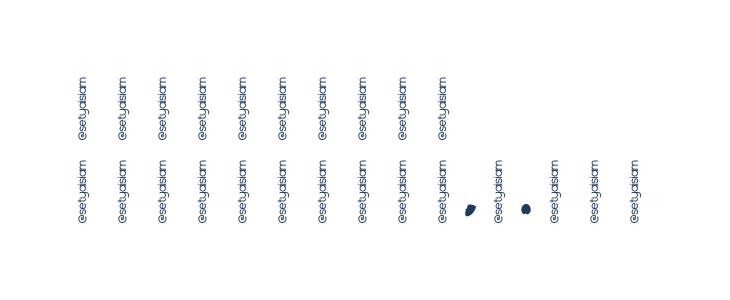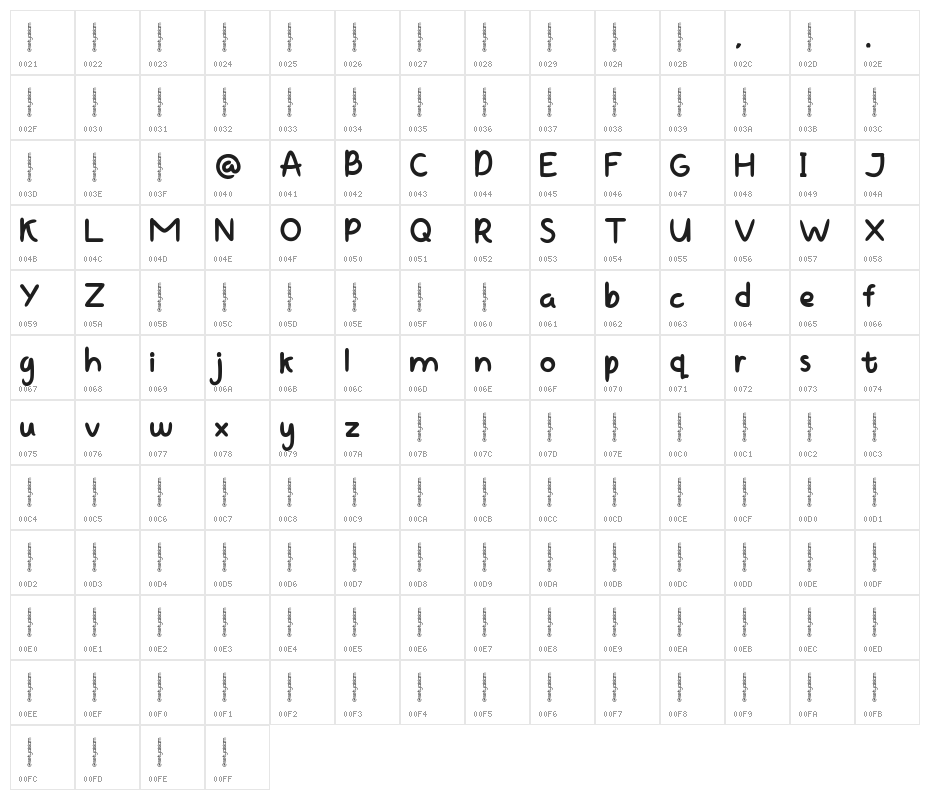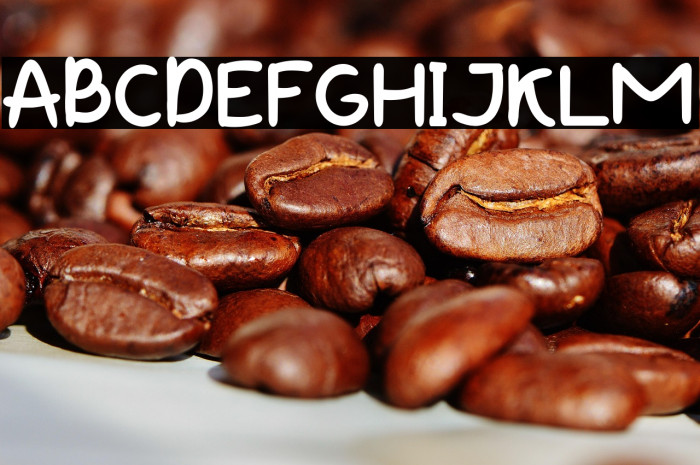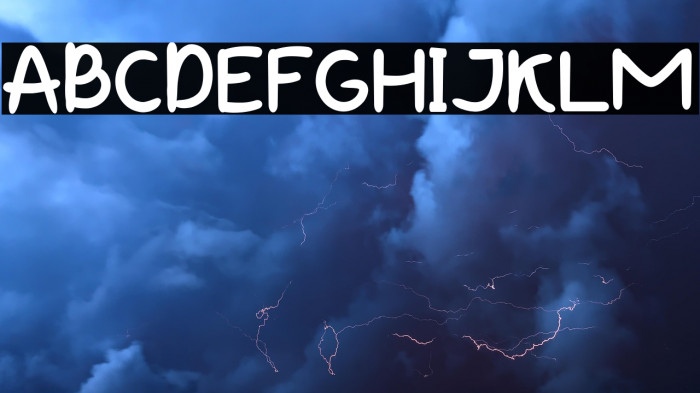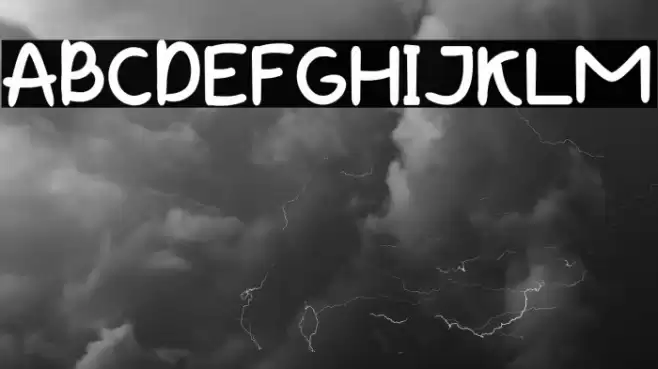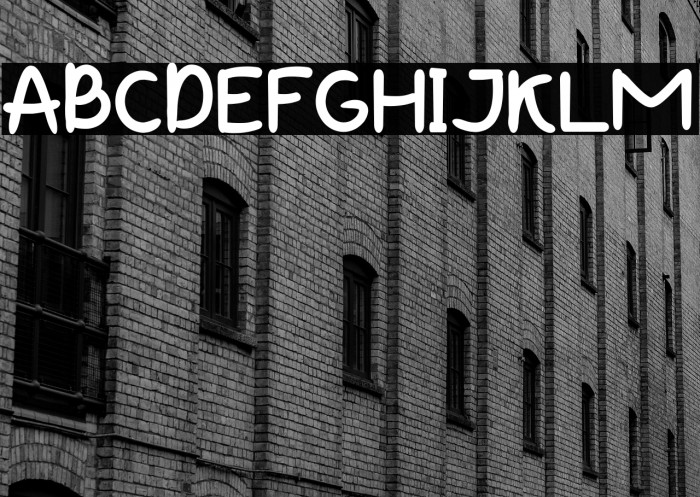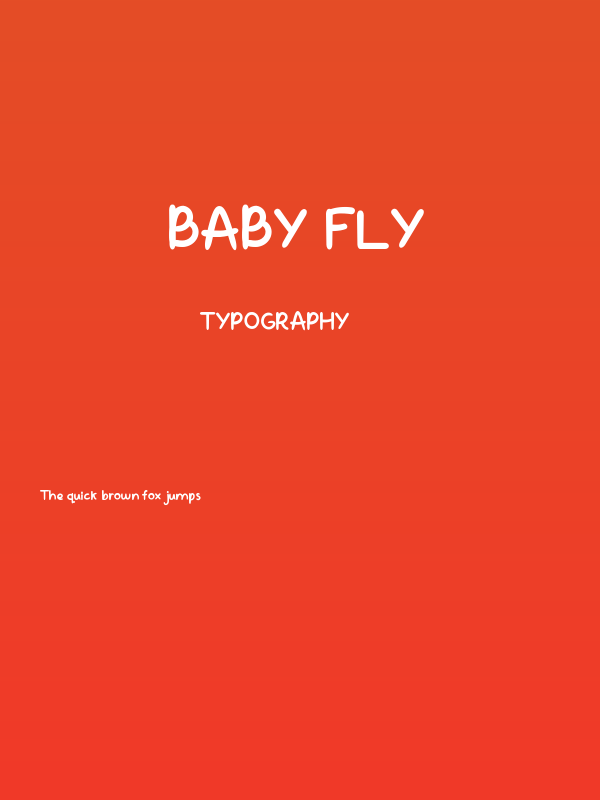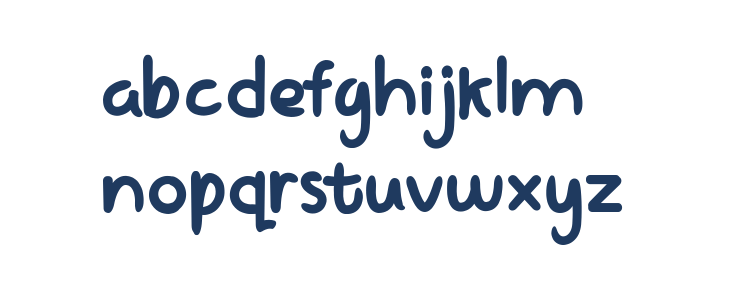
Baby Fly Font
Baby Fly Description
This playful and rounded font features a friendly and approachable design, characterized by its smooth curves and consistent stroke width. The letters are bold and slightly condensed, giving them a compact appearance while maintaining readability. The font's whimsical style is evident in its rounded edges and informal structure, making it suitable for casual and fun applications. It includes a full set of uppercase and lowercase letters, numerals, and a selection of special characters, all maintaining the same playful aesthetic.